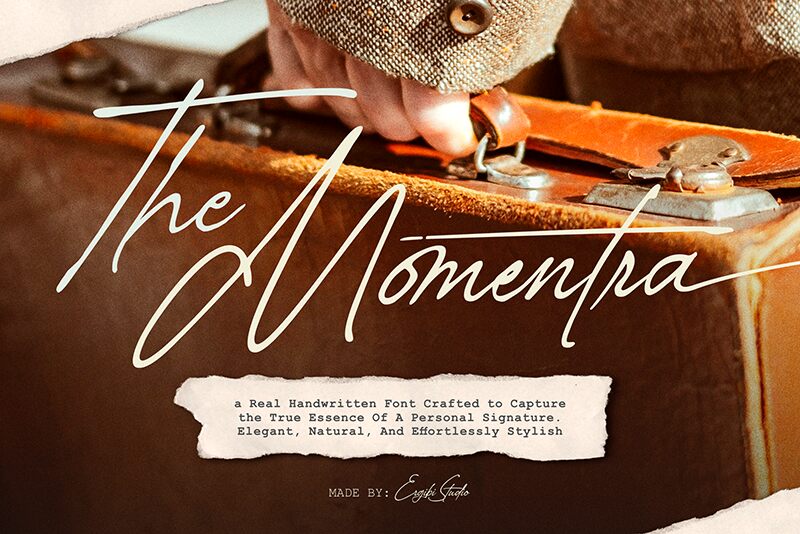
The Momentra
The Momentra font is a beautiful handwritten typeface by Riyadh Rahman. With its light weight, exquisite strokes, and undeniably sophisticated vibe, this modern script font has charming movement for added character and more expression. Its elegant and flowing letters make it an ideal choice for various projects that require style and exceptional imagination.